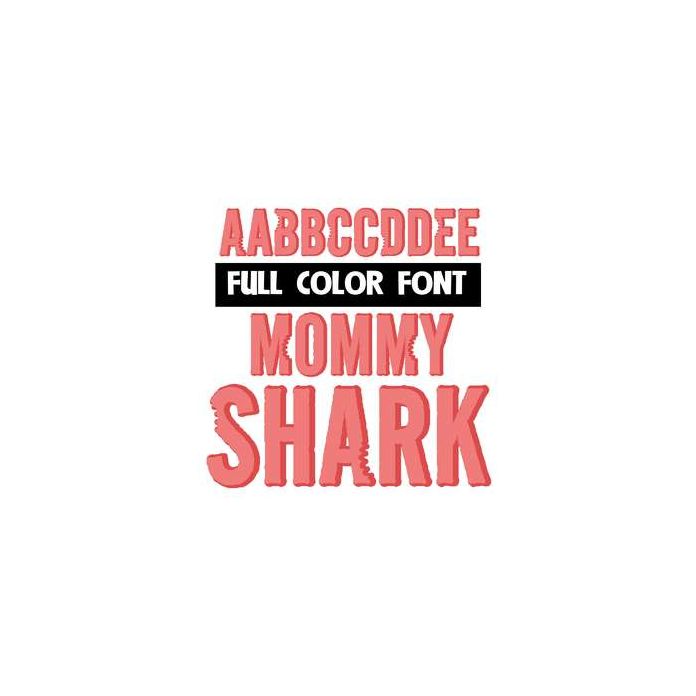
This full color font features shark bites. Mix up both cases for best results. This font works best for titles, displays, posters and more. Please note color fonts will show as black in non compatible programs. This font type is compatible with Silhouette Studio.